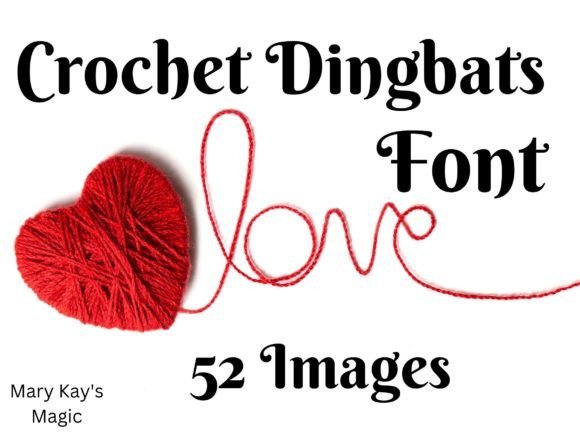
The Hook to Your Design: Introducing Crochet Font
Have you ever found yourself in a moment of pure creativity, hook in hand, surrounded by yarn and a vision of something beautiful? That’s the magic of crochet – a world where art meets functionality, and imagination knows no bounds. For designers, this intersection of art and craft is a treasure trove of inspiration.
Enter the Crochet Font, a delightful dingbats font that brings the whimsy of crochet to your design arsenal. This charming font is a must-have for crochet enthusiasts and designers alike, offering a unique way to add texture, interest, and personality to your projects. With the Crochet Font, you can now bring your crochet creations to life in a whole new way, elevating your designs with a touch of handmade charm.
Whether you’re a seasoned designer or a crochet newbie, the Crochet Font is an invaluable addition to your font collection. Its versatility and charm make it a valuable asset for anyone looking to add a personal touch to their designs.
Crochet Font Key Features
- Unique Characteristics: Crochet Font features intricate, hand-drawn designs that resemble traditional crochet patterns, making it perfect for crafting and DIY enthusiasts.
Crochet Font Review
Crochet Font is a visually appealing font that can be used in a variety of projects, from crochet patterns to embroidery designs. The font is ✨ clean and easy to read, making it a great choice for anyone who wants to create professional-looking projects.
The font is highly customizable, with a range of options for size, color, and style. This makes it easy to create complex designs and patterns, and to customize the font to fit your specific needs.
- ✨ Clean and easy-to-read design
- ✨ Highly customizable
- ✨ Suitable for a wide range of projects
- ⚠️ Limited support for non-standard characters
- ⚠️ Can be slow to load on older systems
Overall, I’m impressed with the quality and versatility of Crochet Font. While it may have some limitations, it’s a great choice for anyone who wants to create professional-looking crochet or embroidery projects. With a little practice and patience, you can create beautiful and complex designs using this font.
Here are some tips to get the most out of the Crochet Font:
– Use it to add a playful touch to your designs.
– Experiment with different colors and styles to create a unique look.
– Use the Crochet Font to create a consistent brand identity.
– Add it to social media graphics, invitations, and other visual elements to make them stand out.